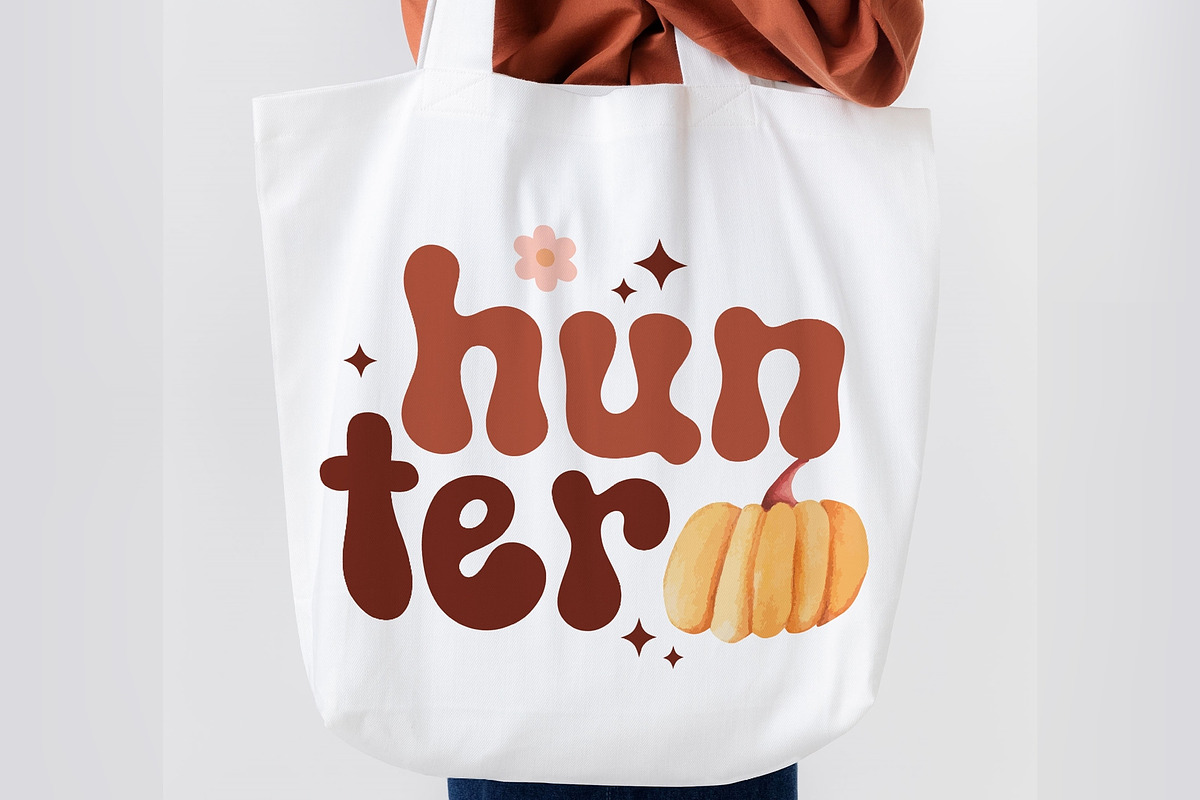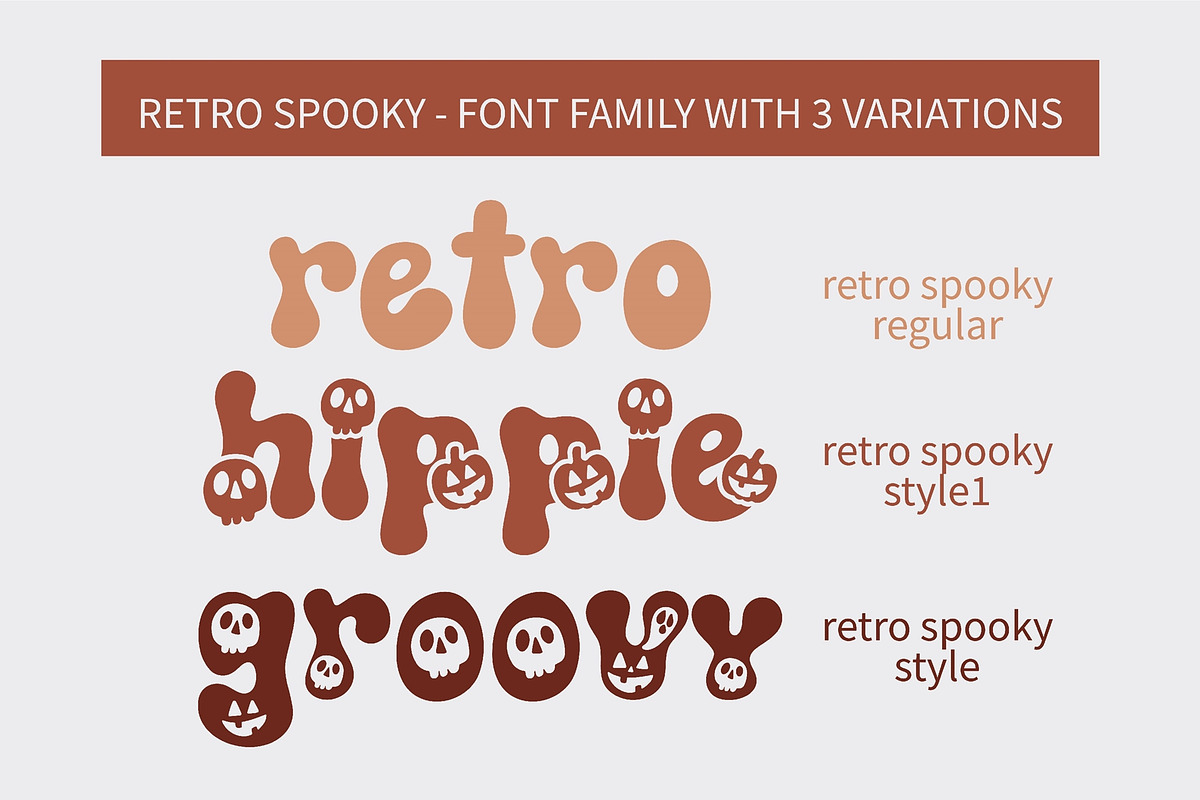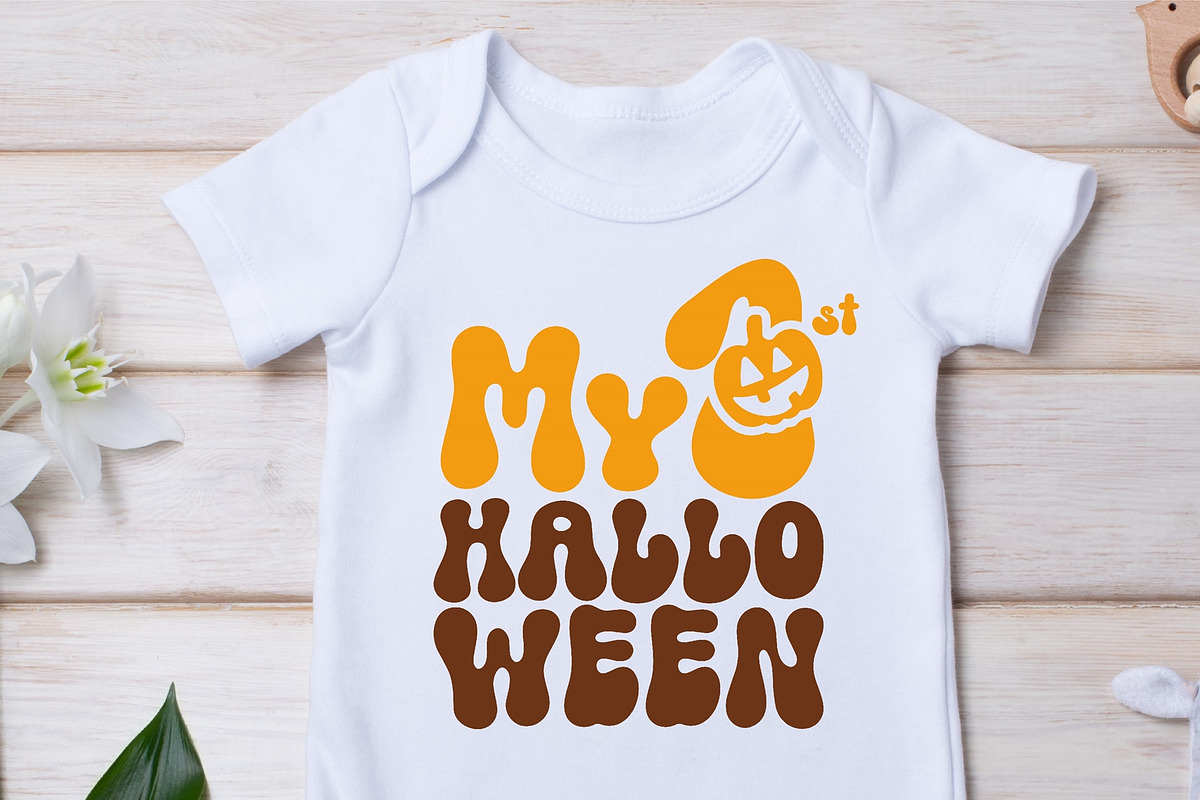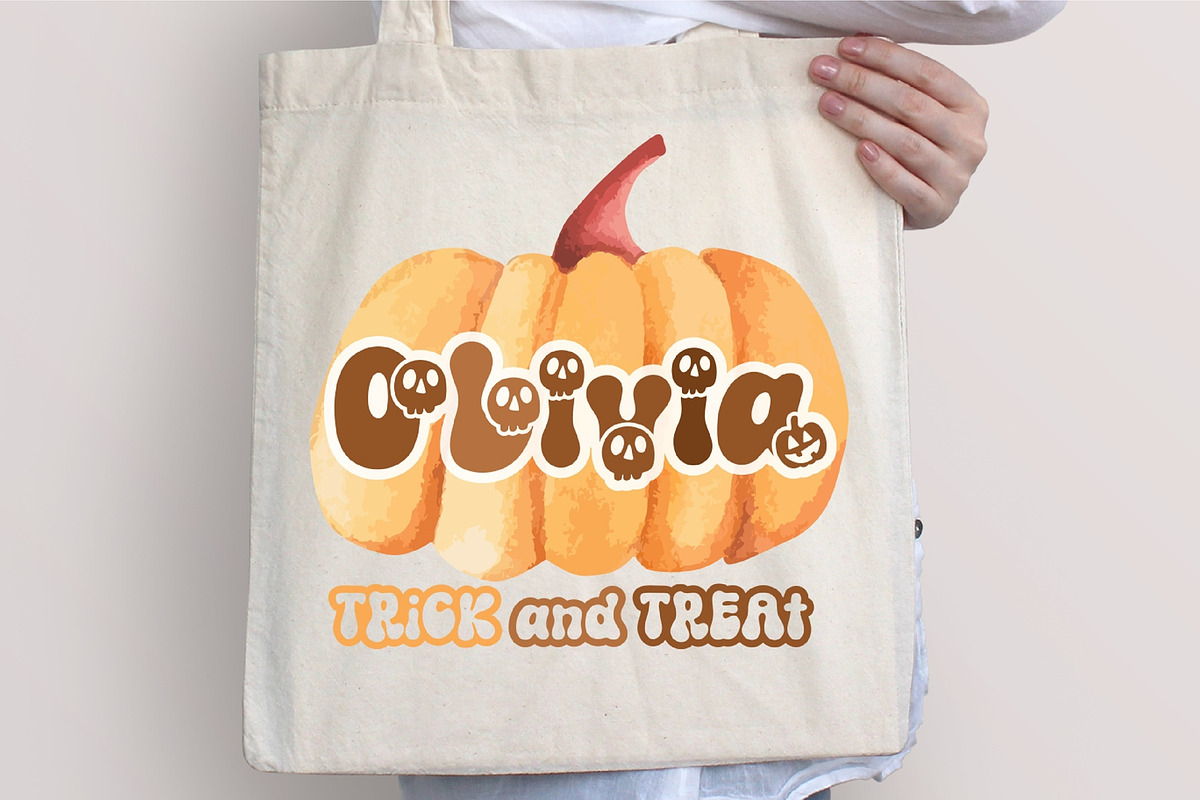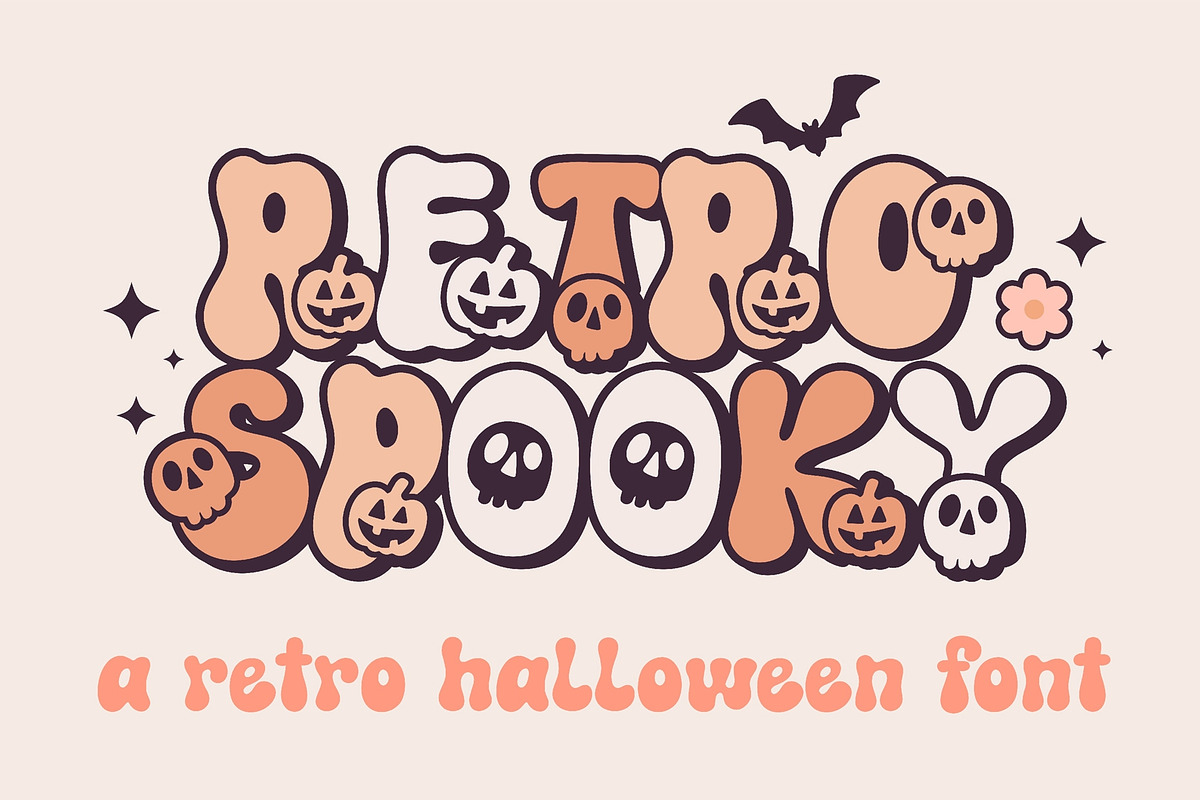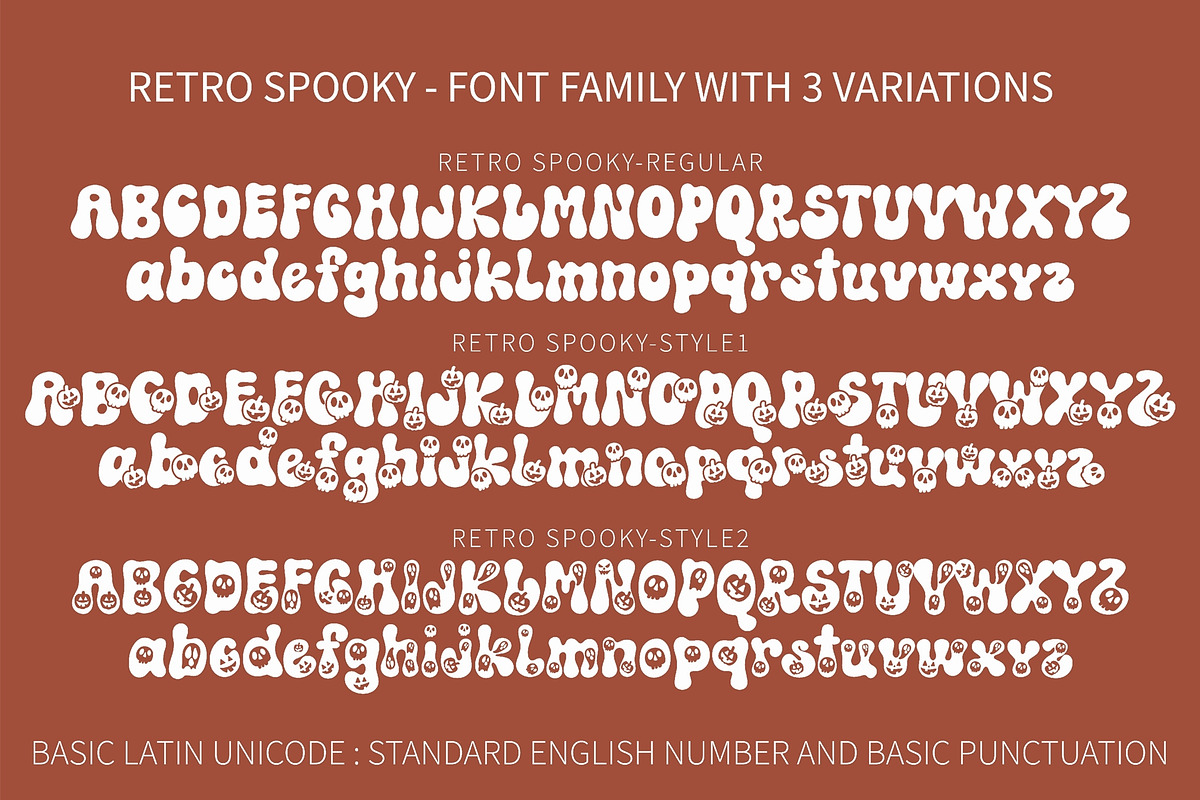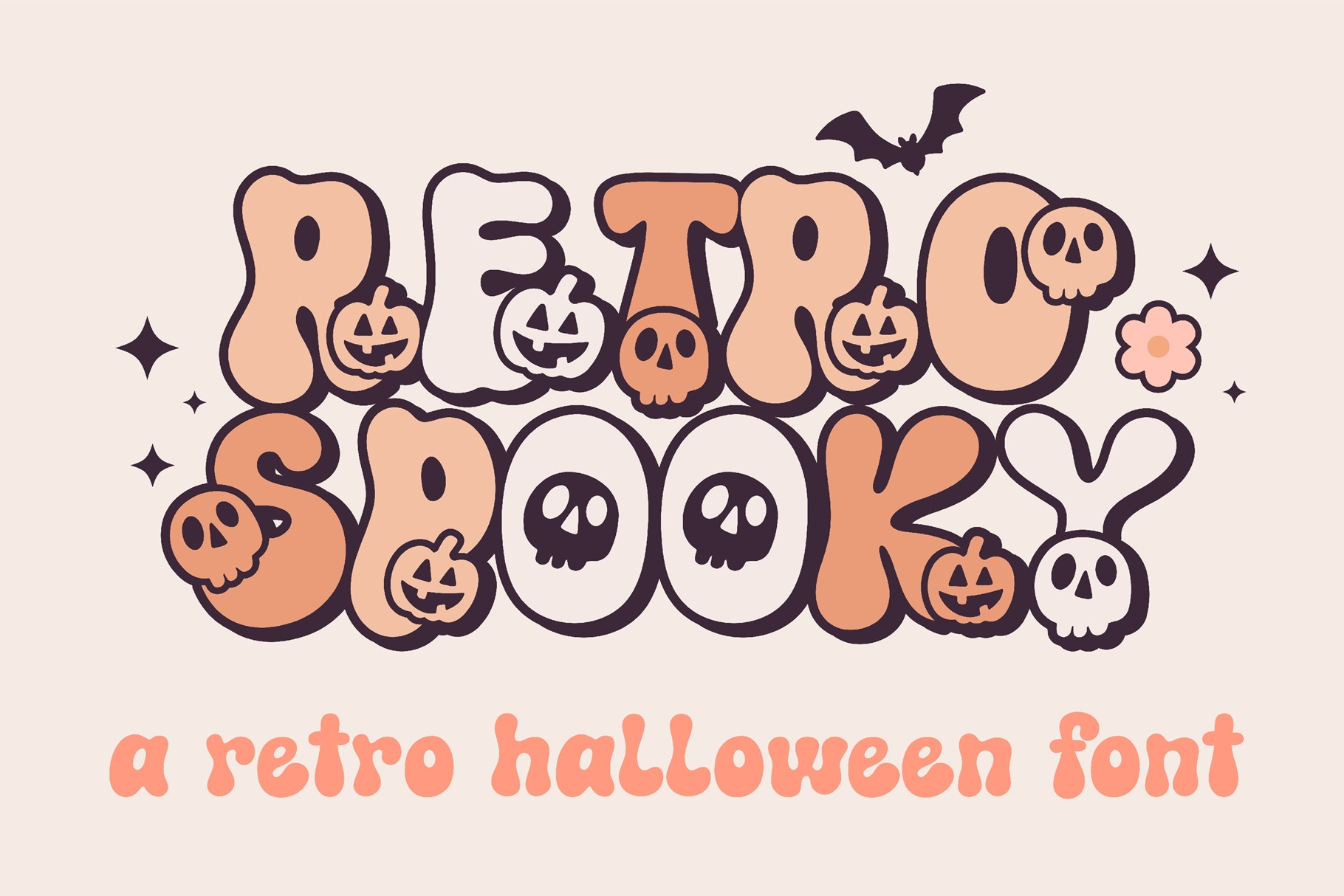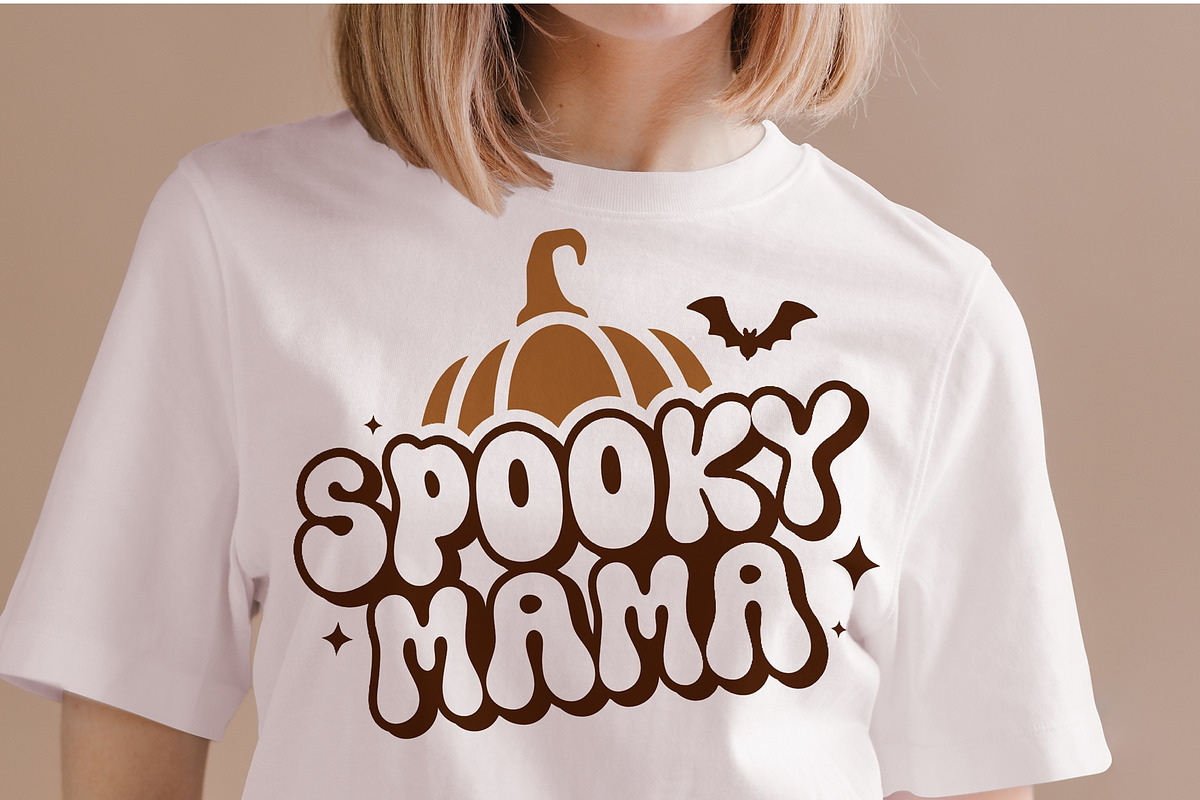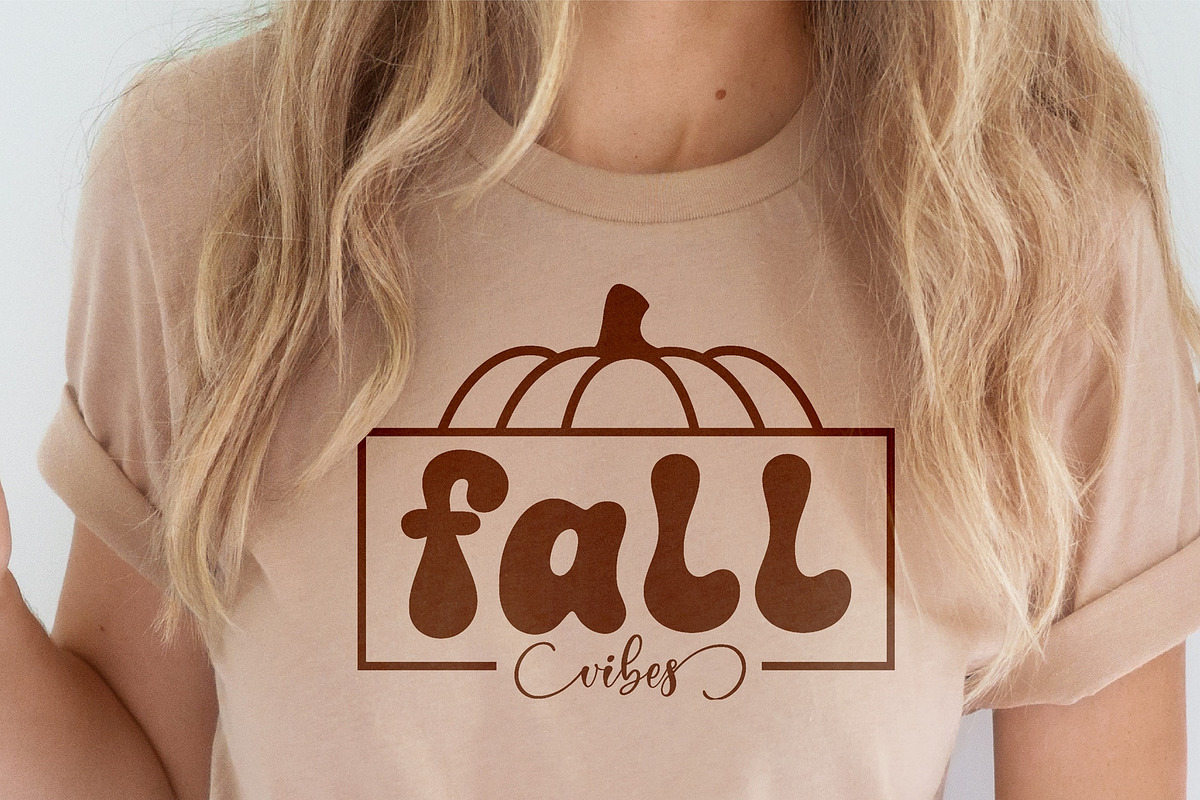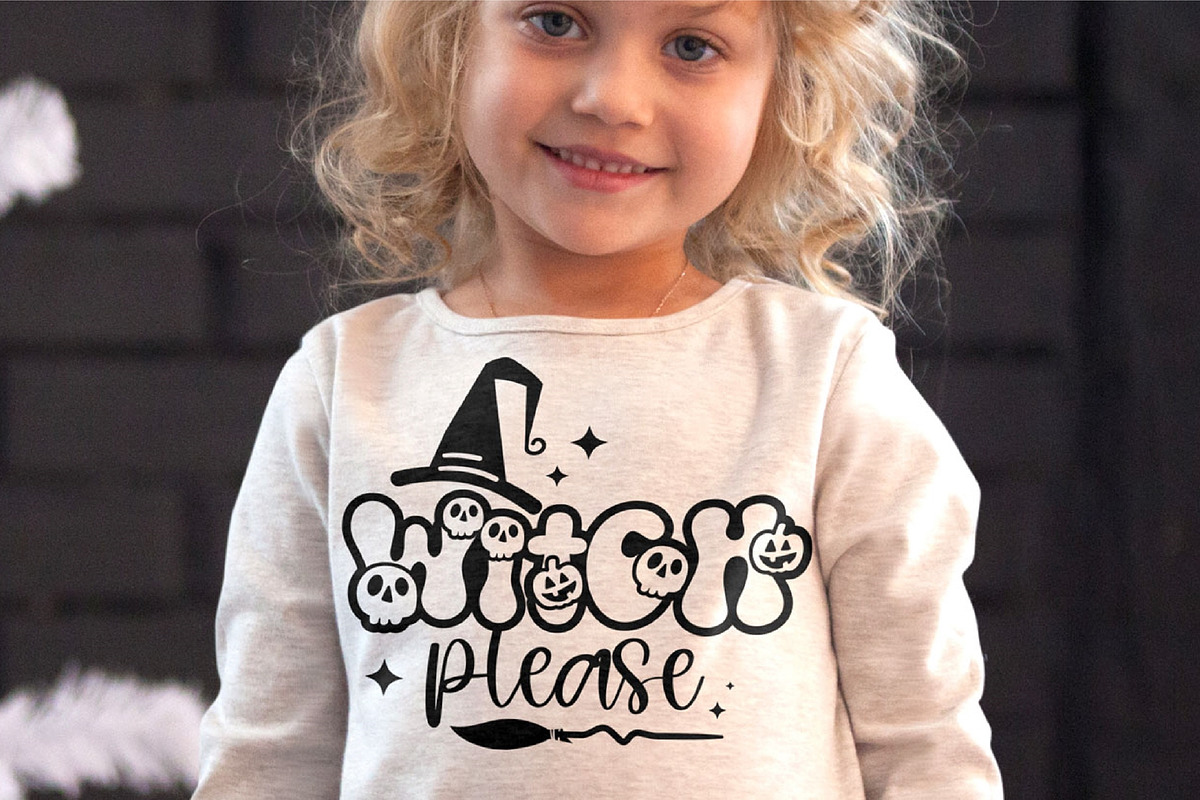
Retro Spooky - Retro Halloween font
Retro Spooky is a retro Halloween font with 3 styles. It is perfect for any October project that requires a dramatic touch!